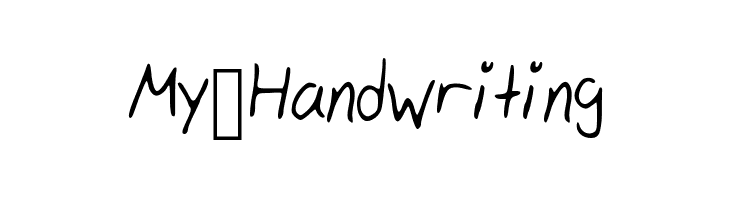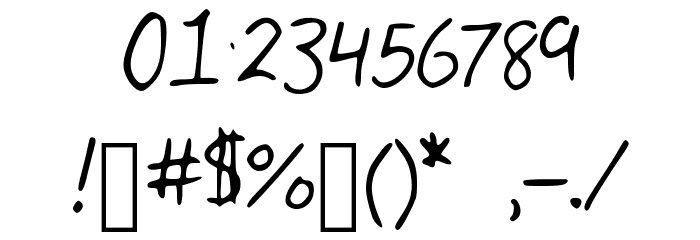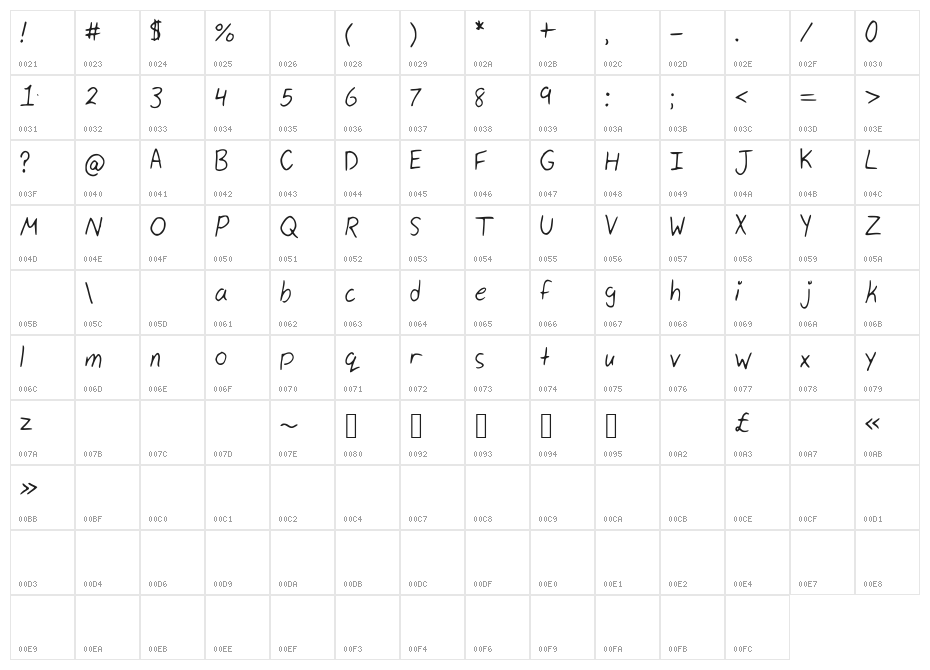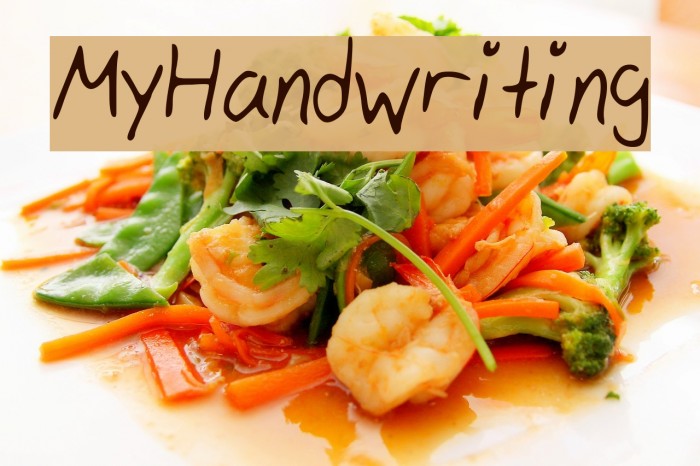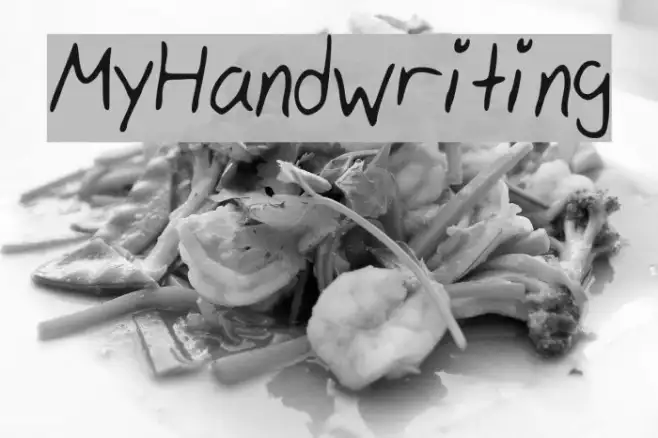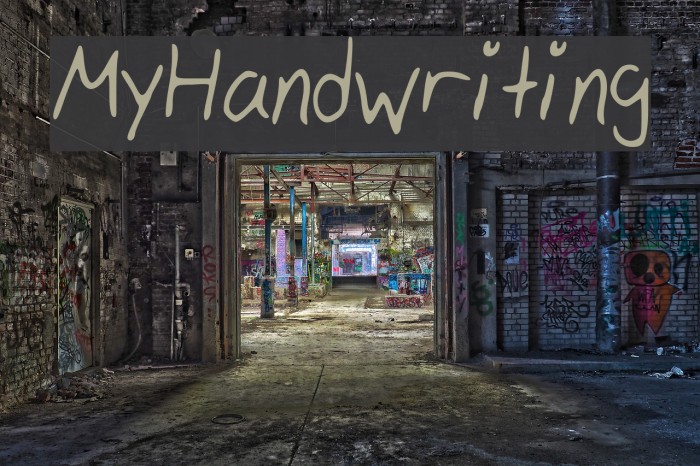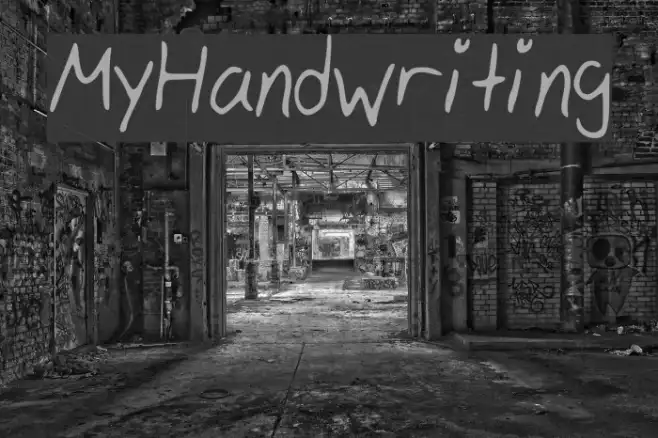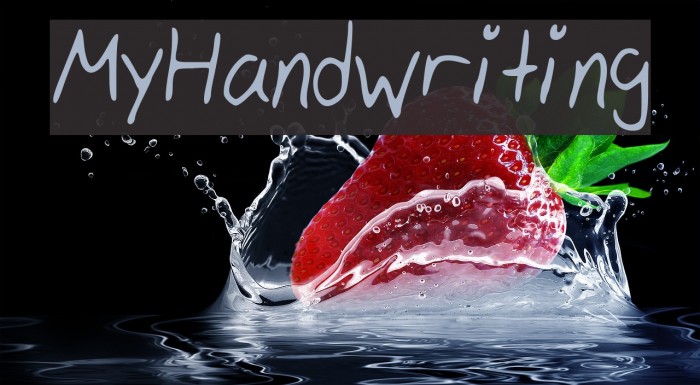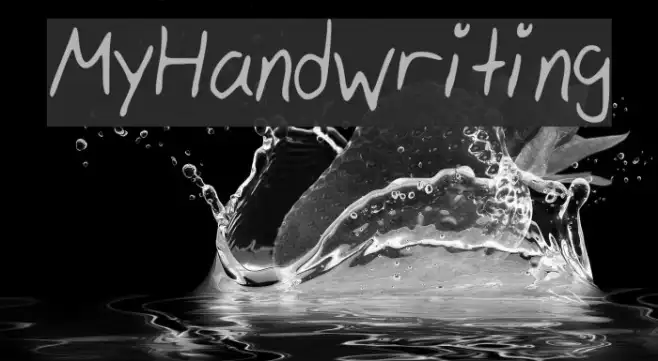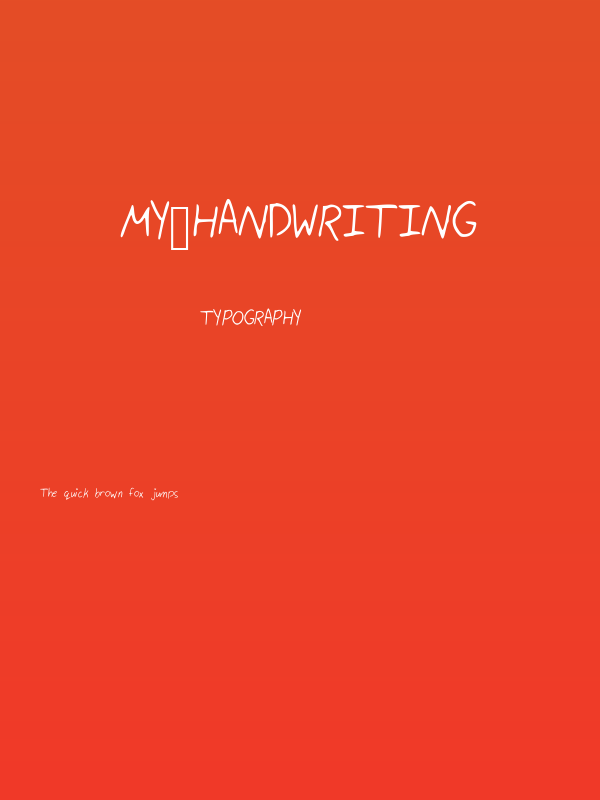
My_Handwriting Font
My_Handwriting Description
This font exudes a casual and personal touch, reminiscent of natural handwriting. The characters are slightly irregular, adding to the authenticity and charm of a handwritten note. The strokes are smooth and fluid, with a consistent thickness that maintains readability while conveying a relaxed and informal tone. The lowercase letters have a playful bounce, while the uppercase letters stand tall and confident. The numerals and special characters are clear and straightforward, complementing the overall style. This font is perfect for projects that require a personal, approachable, and friendly feel.
| Overall Style | Casual, Personal |
| Use Case | Headlines, Informal text, Personal notes |
| Proposed Projects | Ideal for personal notes, invitations, greeting cards, and informal branding projects. |